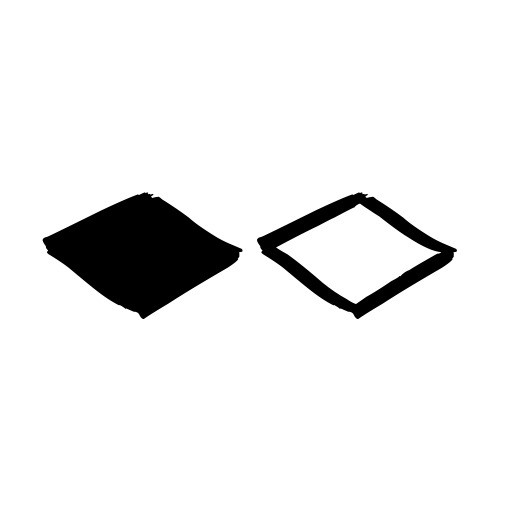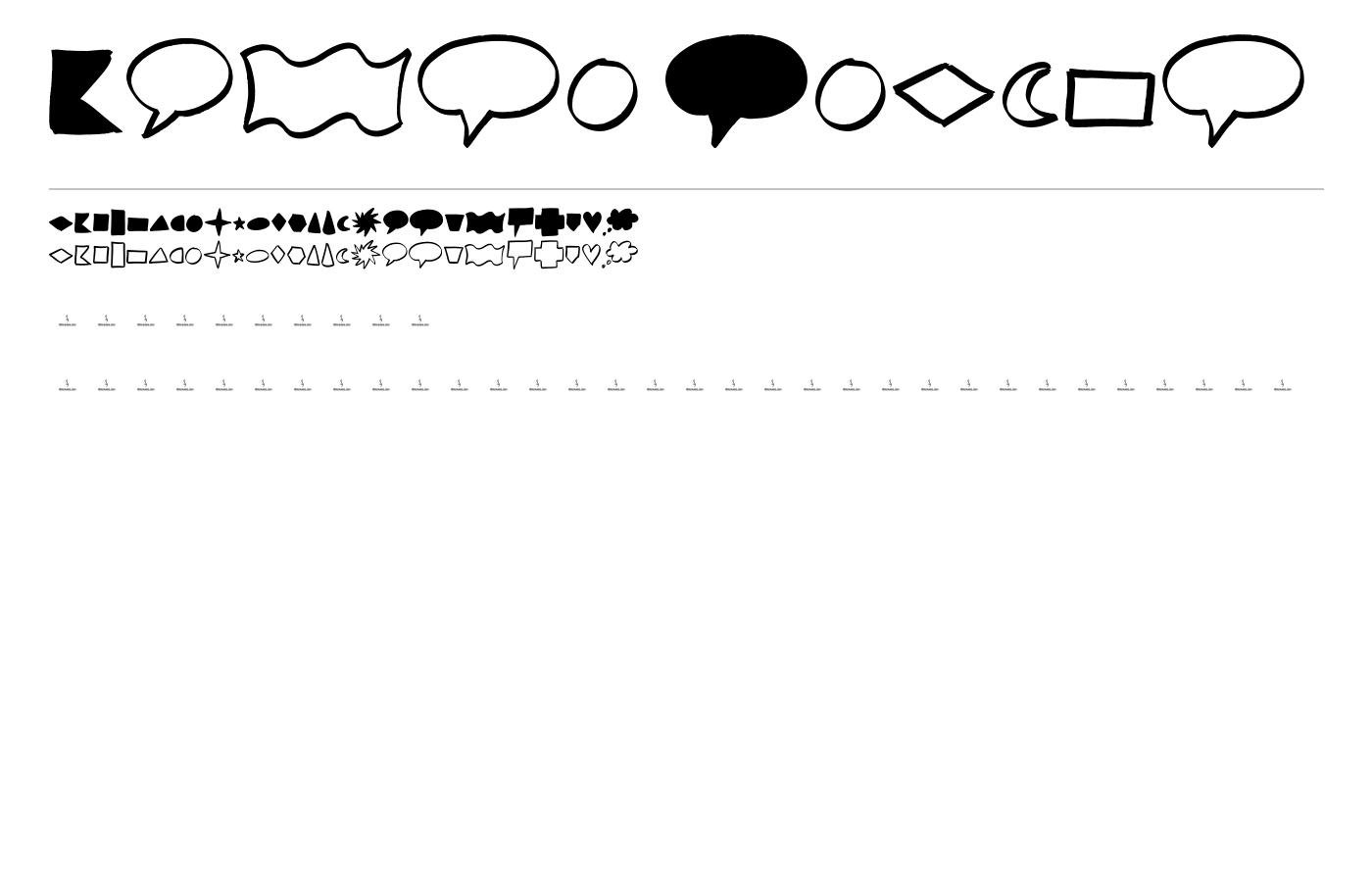
Brush Shapes Font is a playful and informal symbol typeface that mimics the texture and irregularity of hand-painted brush strokes. It features bold, irregular shapes mostly in the form of speech bubbles and decorative icons, creating a dynamic and expressive look perfect for comic, creative, or casual design projects. This font works best for headlines, posters, and graphic elements where a fun, handmade feel is desired.
Brush Shapes Font
About Brush Shapes Font
| Font family | Brush Shapes Font |
| Designer | Jonathan S Harris |